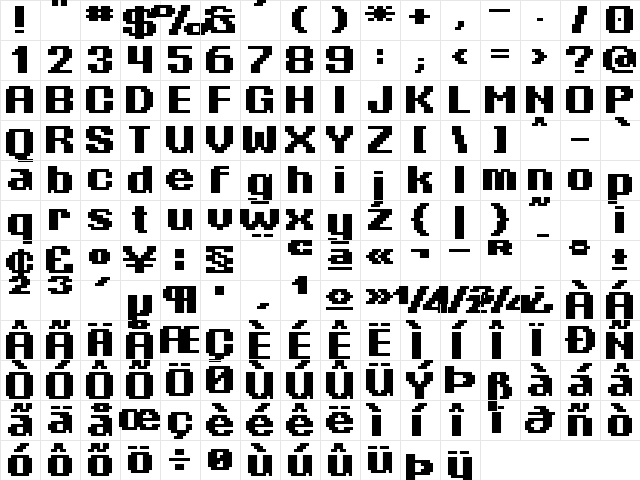
Phatone Regular
Design Context for Phatone Typeface
Phatone takes a measured approach to typography — its balanced proportions and neutral character make it a reliable workhorse for both digital and print work.